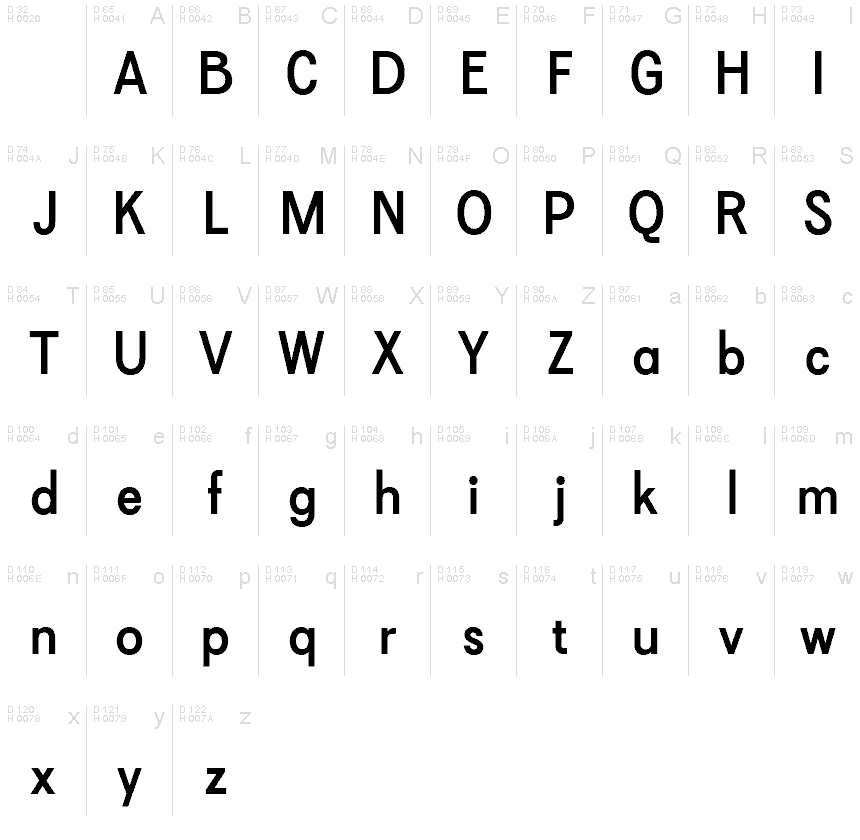
CS Aloise font from Craft Supply Co. instantly elevates your projects thanks to its modern aesthetic and geometric structure. This free sans serif font masters an interesting combination between clean lines and a professional appeal on one hand, and some beautiful serif elements on the other for maximum elegance.
Use within greeting cards such as for weddings or business campaigns that require invitations, stationery design, portraiture like in photography brands or on interior design websites or magazines, but also in journalism and general writing activities such as books (book covers).